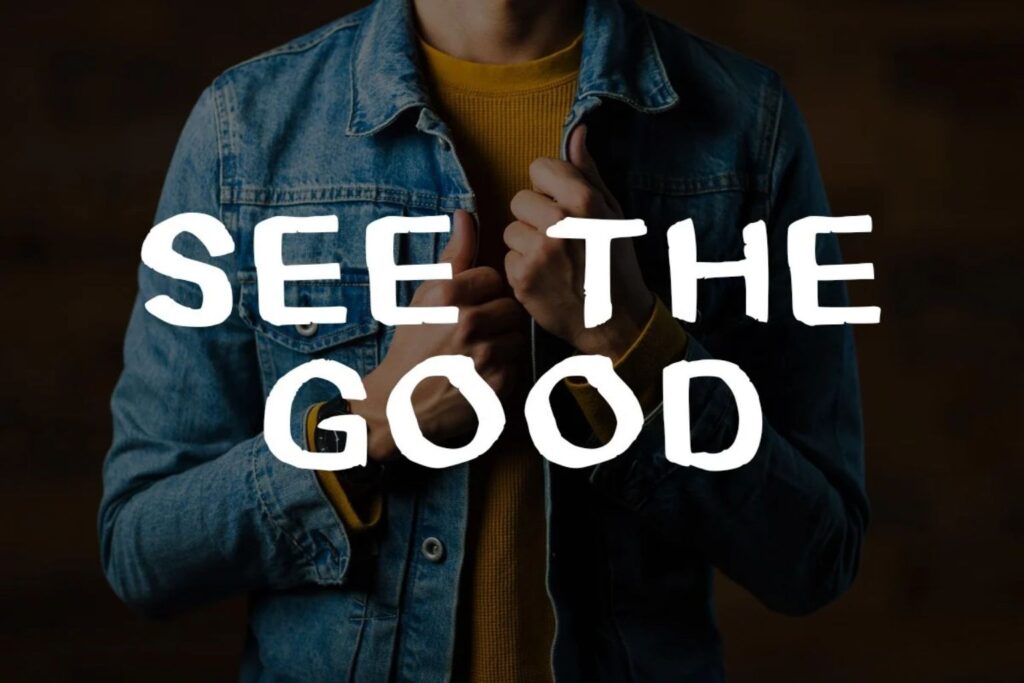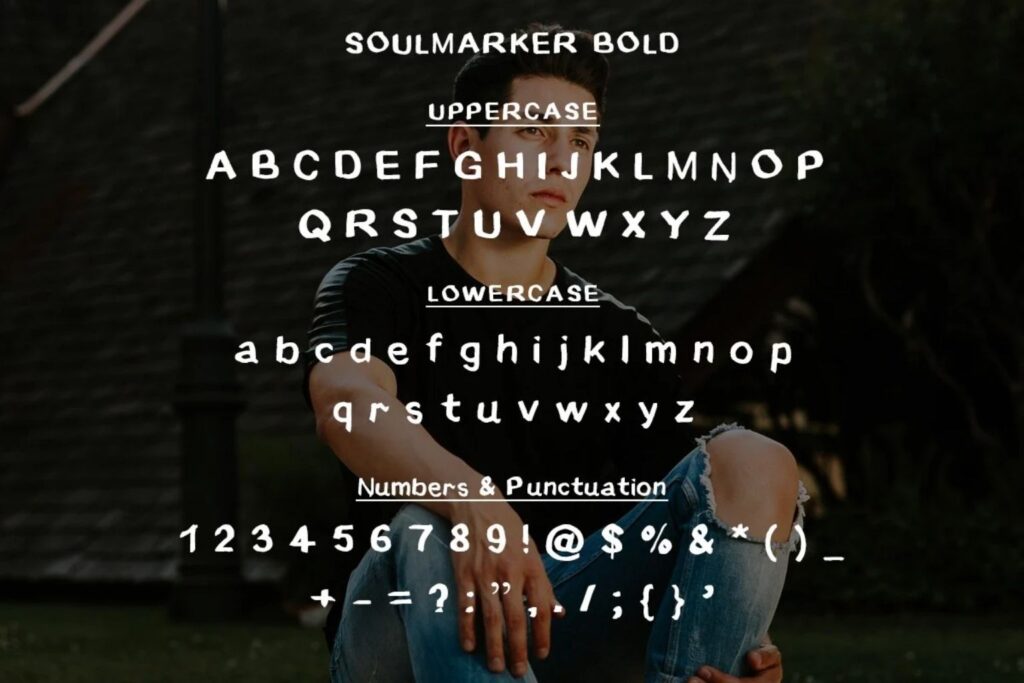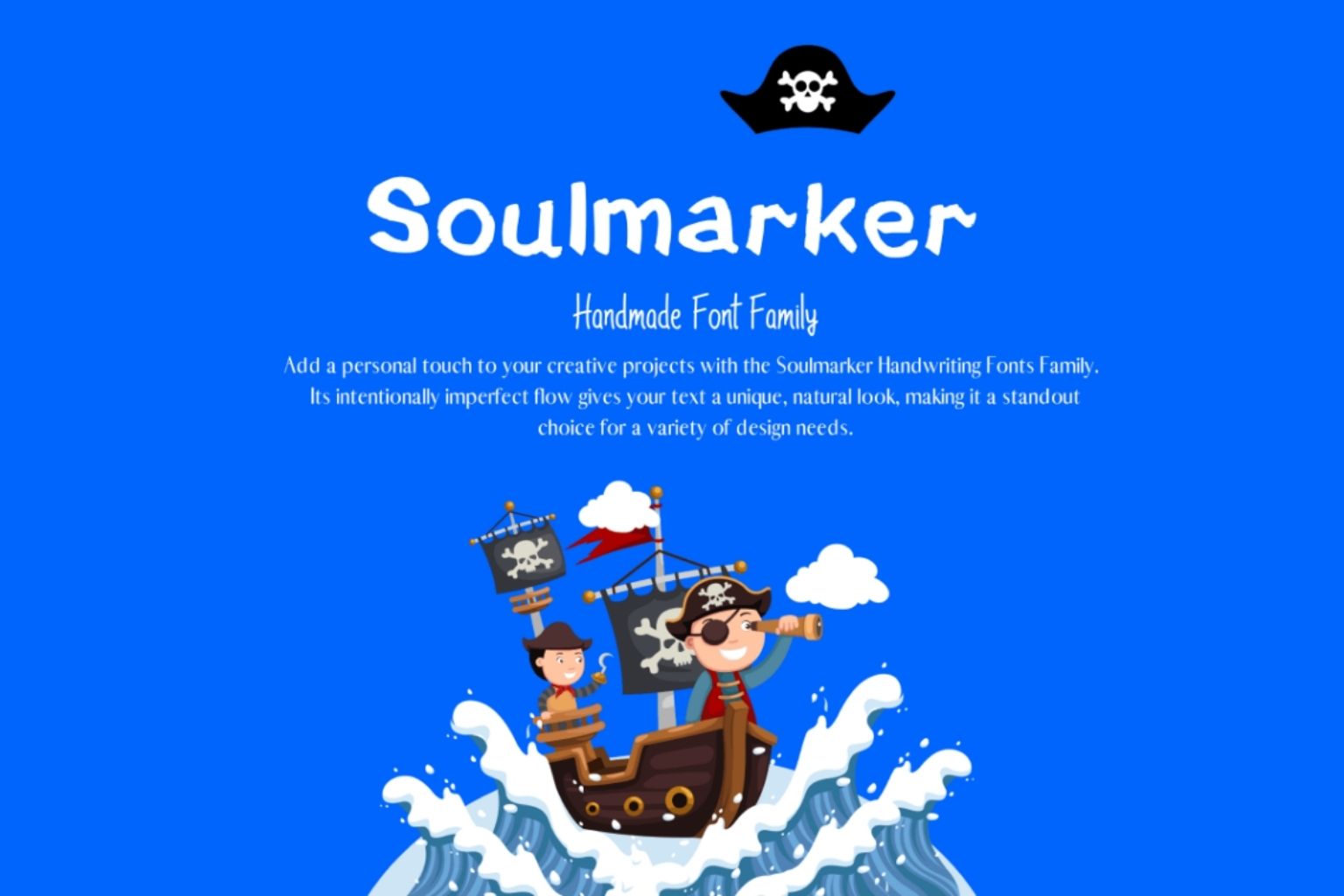
Soulmarker Handwriting Fonts Family
Add a personal touch to your creative projects with the Soulmarker Handwriting Fonts Family. This playful and inviting font family is packed with features, including both uppercase and lowercase letters, numbers, and special characters. Its intentionally imperfect flow gives your text a unique, natural look, making it a standout choice for a variety of design needs.
Perfect for crafting memorable quotes, eye-catching blog headers, or even stunning wedding invitations, Soulmarker is the versatile font you’ve been searching for. And it’s not just for print—this adaptable font is also web-friendly, letting you bring a cohesive look to your online and offline projects.